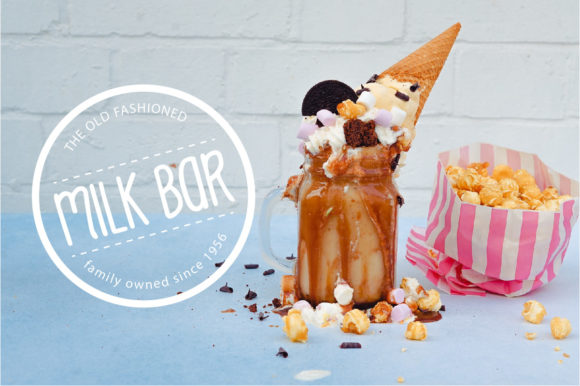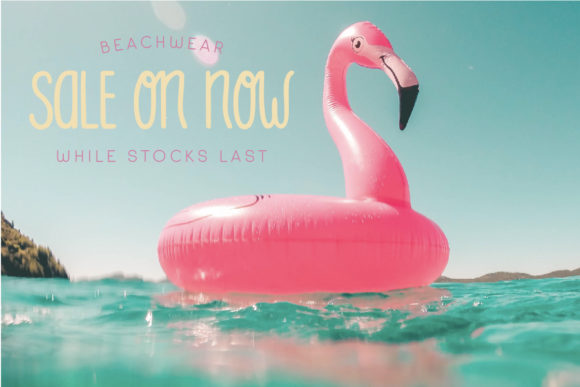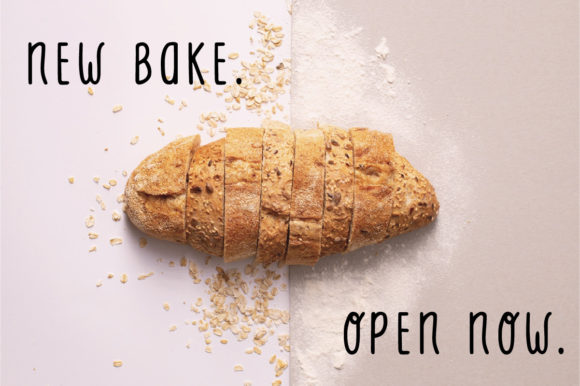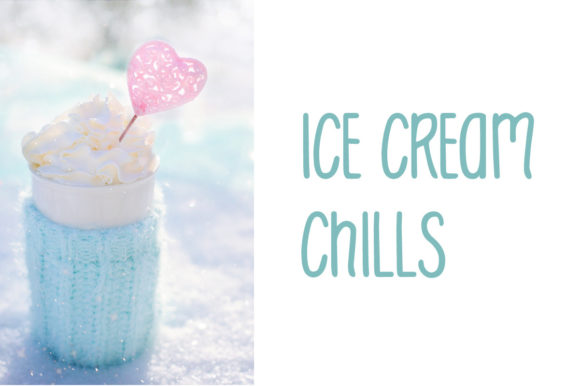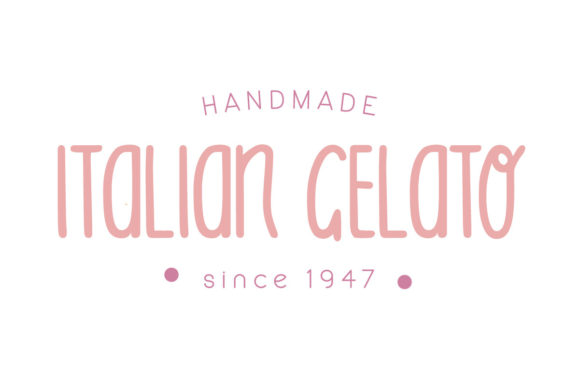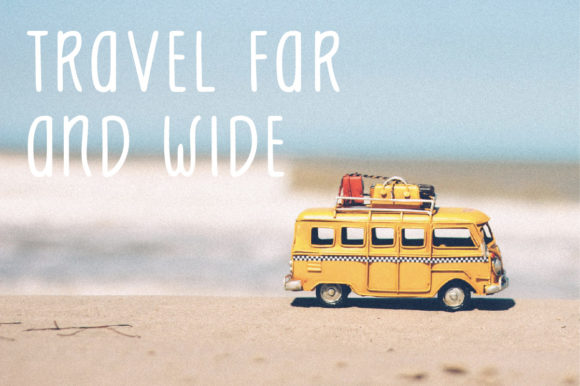
Introducing Cornerstore Font: The Perfect Handwritten Font for Fun and Engaging Designs
Are you a designer or crafter looking for a font that can add a touch of fun and friendliness to your projects? Look no further than Cornerstore Font! This adorable handwritten font is perfect for creating eye-catching chalkboard quotes, teaching materials, and children’s themed designs that are sure to delight.
What Makes Cornerstore Font So Special?
Cornerstore Font is a cute, fun, and friendly handwritten font that is designed to bring a smile to your face. Its playful and approachable style makes it perfect for a wide range of projects, from educational materials to marketing campaigns. Whether you’re creating a chalkboard quote, a children’s book, or a fun craft project, Cornerstore Font is sure to add a touch of whimsy and personality.
Perfect for Children’s Themed Designs
One of the standout features of Cornerstore Font is its ability to evoke a sense of childhood wonder and excitement. When combined with bright colors, this font is perfect for creating designs that are both fun and engaging. Imagine using Cornerstore Font to create a colorful and eye-catching poster for a children’s event, or to design a set of fun and educational worksheets for kids. The possibilities are endless!
Why Designers and Crafters Love Cornerstore Font
So, why do designers and crafters love Cornerstore Font? For starters, its handwritten style gives projects a personal and approachable feel that’s hard to achieve with more traditional fonts. Additionally, its playful and fun style makes it perfect for creating designs that are both visually appealing and engaging. Whether you’re a professional designer or a crafty DIY enthusiast, Cornerstore Font is a great choice for anyone looking to add a touch of personality to their projects.
Tips for Using Cornerstore Font in Your Designs
Here are a few tips for using Cornerstore Font in your designs:
- Combine Cornerstore Font with bright colors to create designs that are both fun and eye-catching.
- Use Cornerstore Font to create chalkboard quotes, teaching materials, and other educational resources.
- Experiment with different font sizes and styles to add visual interest to your designs.
- Pair Cornerstore Font with other playful fonts to create a unique and engaging design.
In conclusion, Cornerstore Font is a fun, friendly, and versatile handwritten font that’s perfect for designers and crafters looking to add a touch of personality to their projects. With its playful style and approachable feel, Cornerstore Font is sure to delight audiences of all ages. Whether you’re creating chalkboard quotes, teaching materials, or children’s themed designs, Cornerstore Font is a great choice for anyone looking to create engaging and visually appealing designs.
Get Creative with Cornerstore Font!